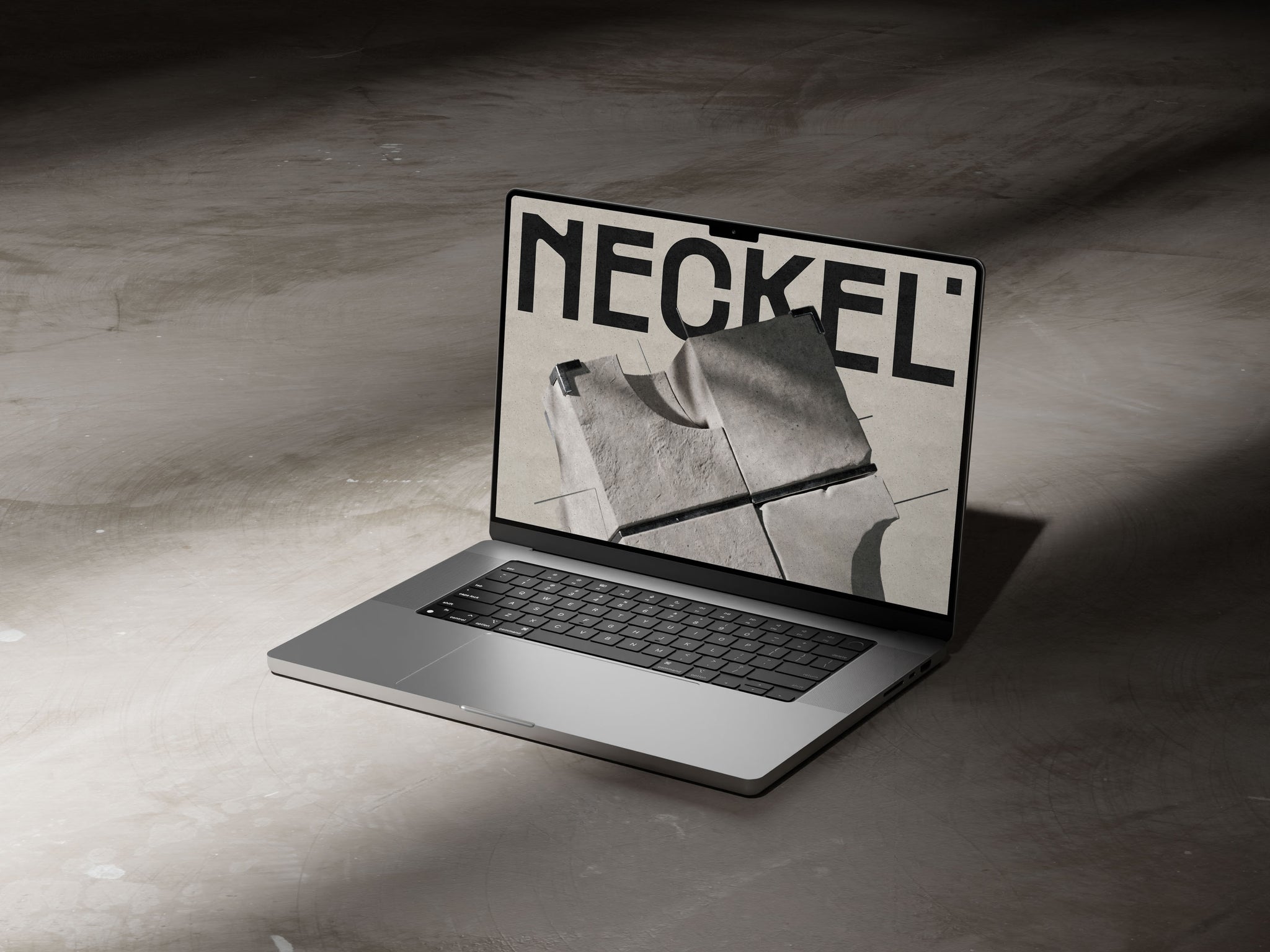
Neckel is a Brazilian studio that offers technical solutions to bring ideas to life,
simplifying various fields of work such as architecture, interiors, product design, furniture, and landscaping.
The Id reflects a minimalist and modern aesthetic, with a brutalist influence highlighted by the use of neutral colors. The typography reinforces the brand identity as robust and reliable, while the clean and functional design communicates clarity and efficiency.